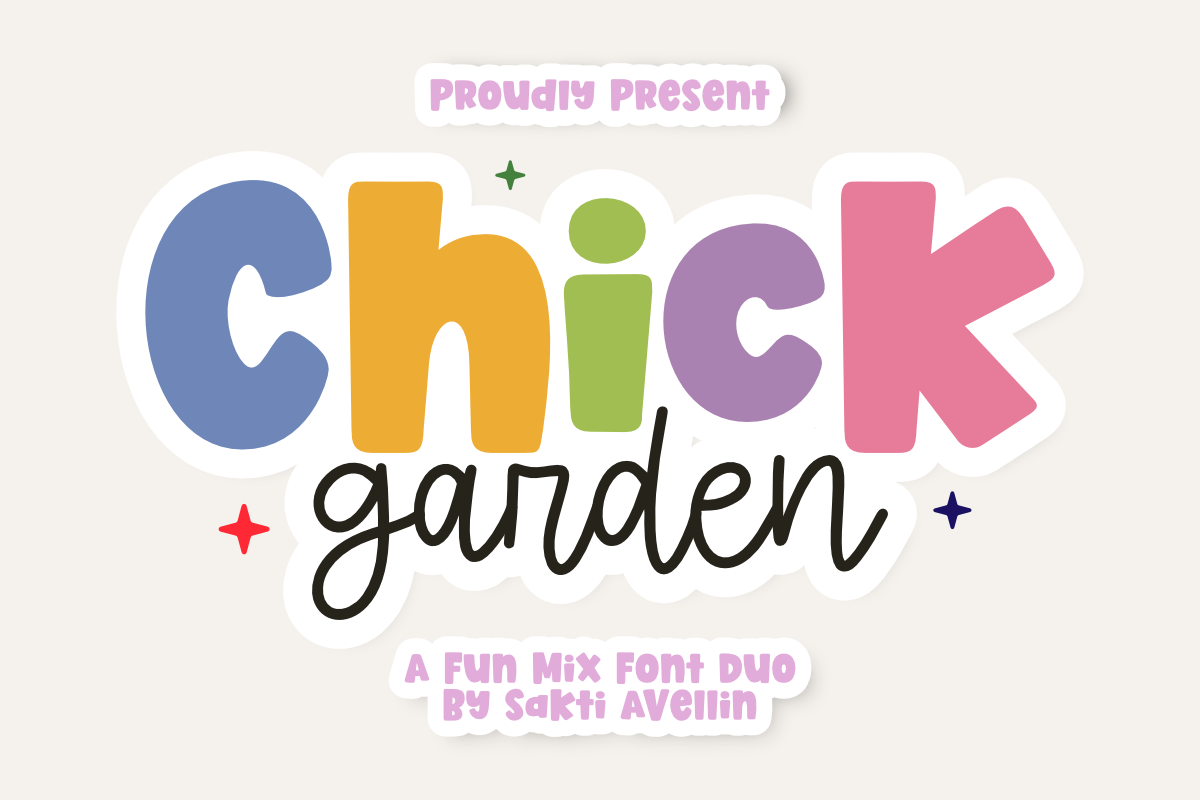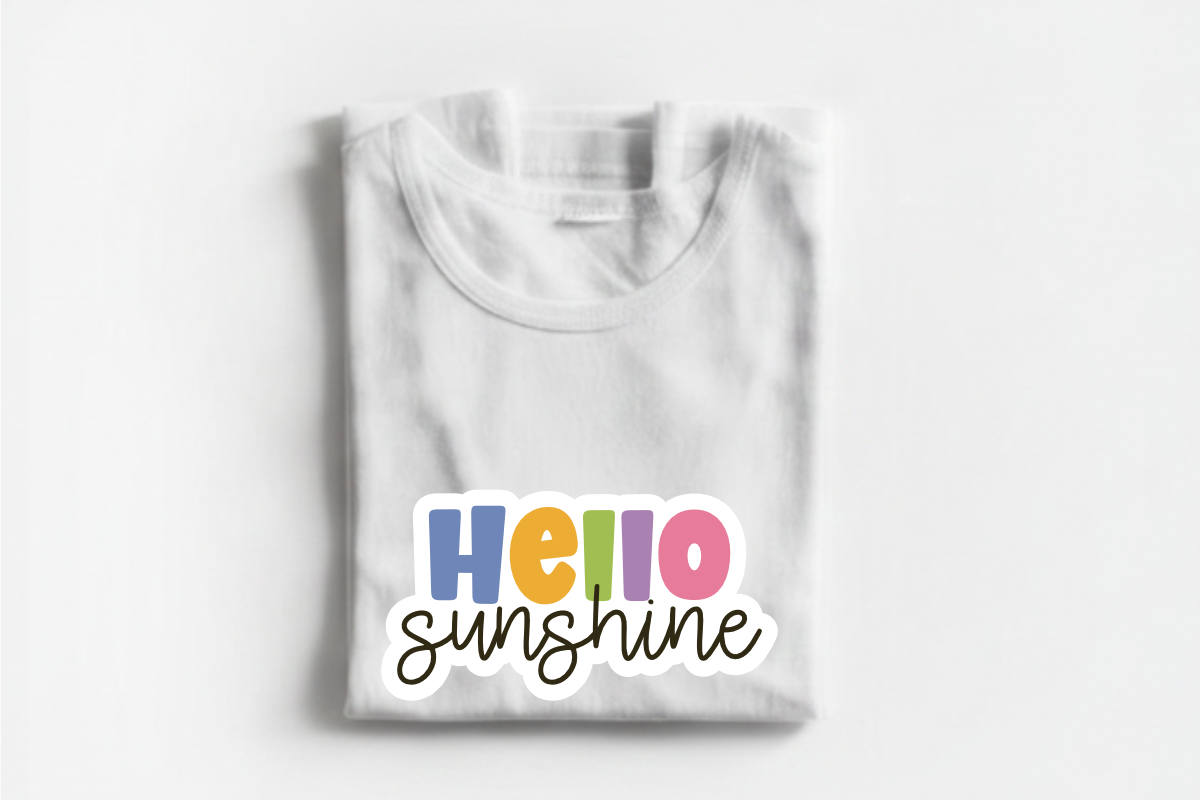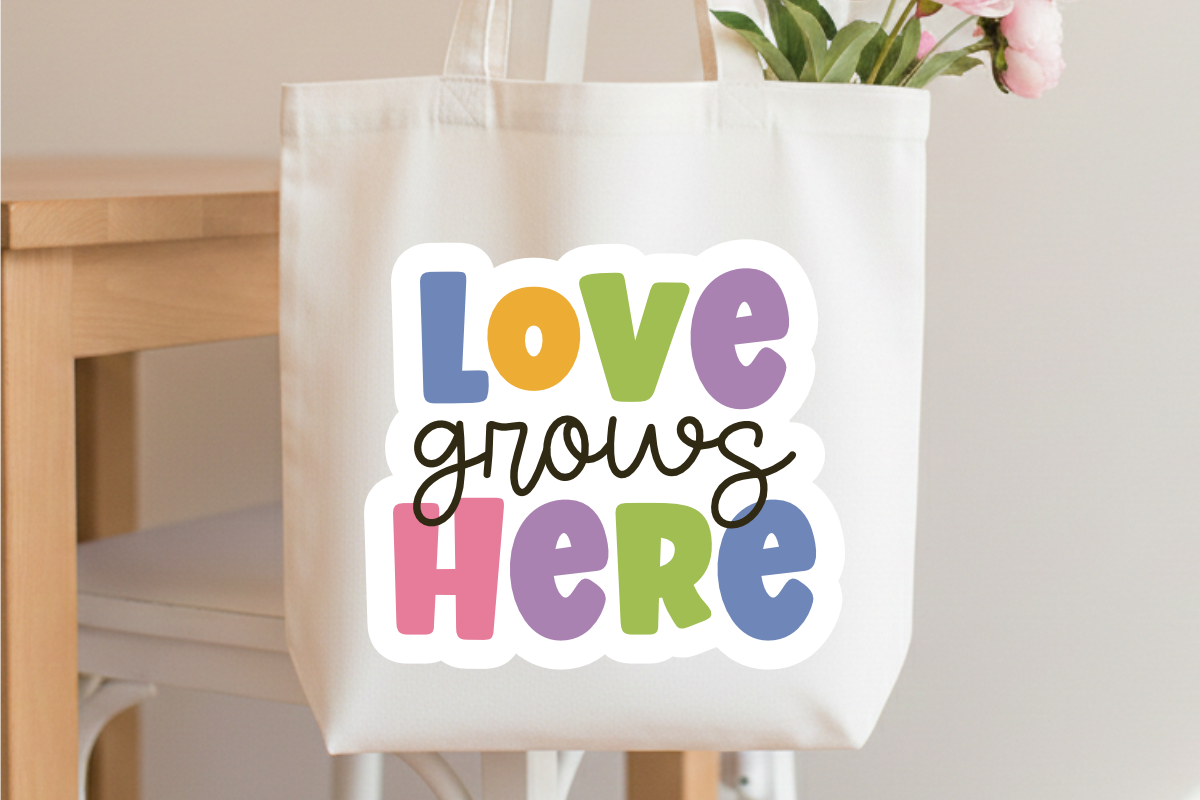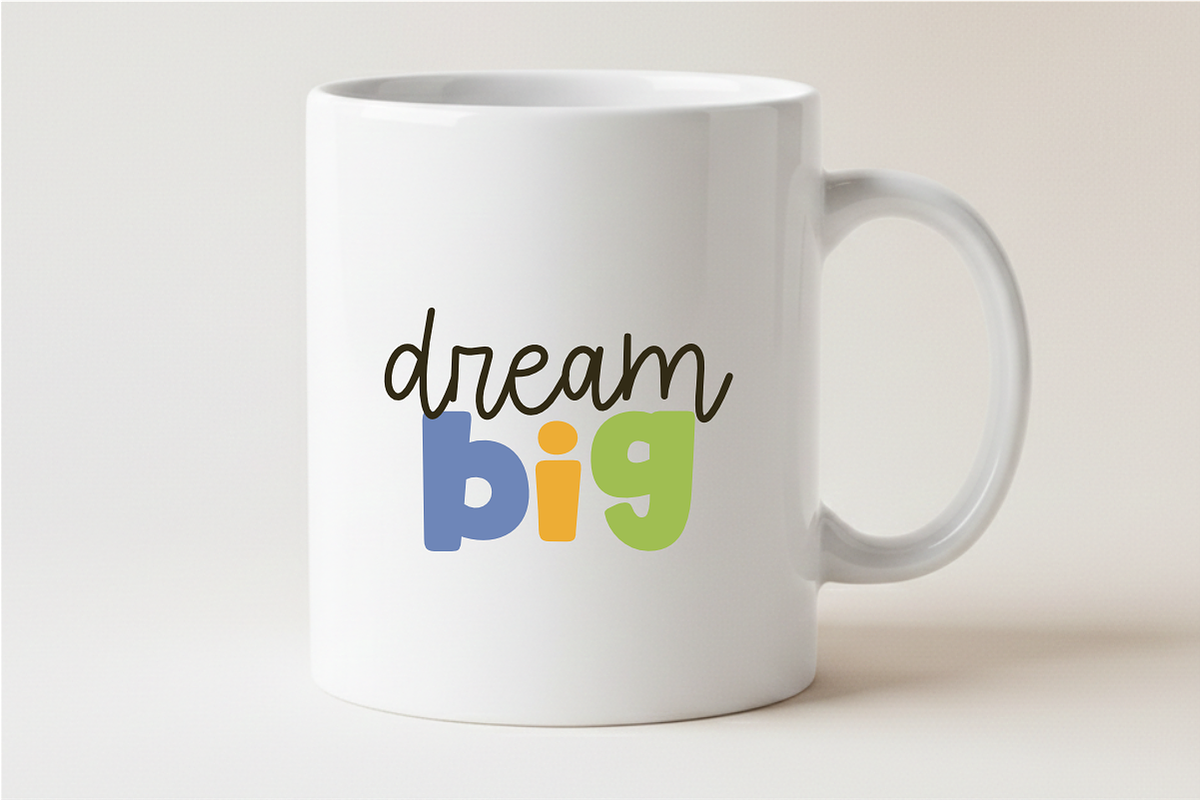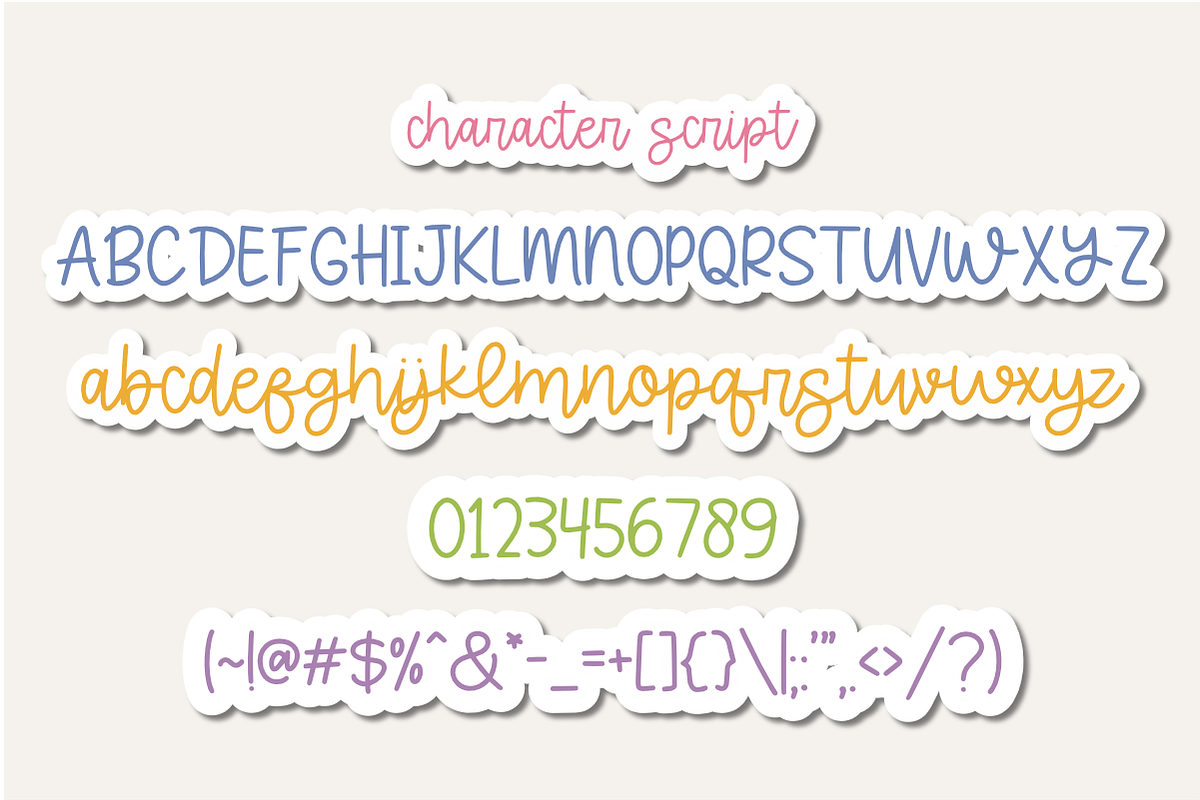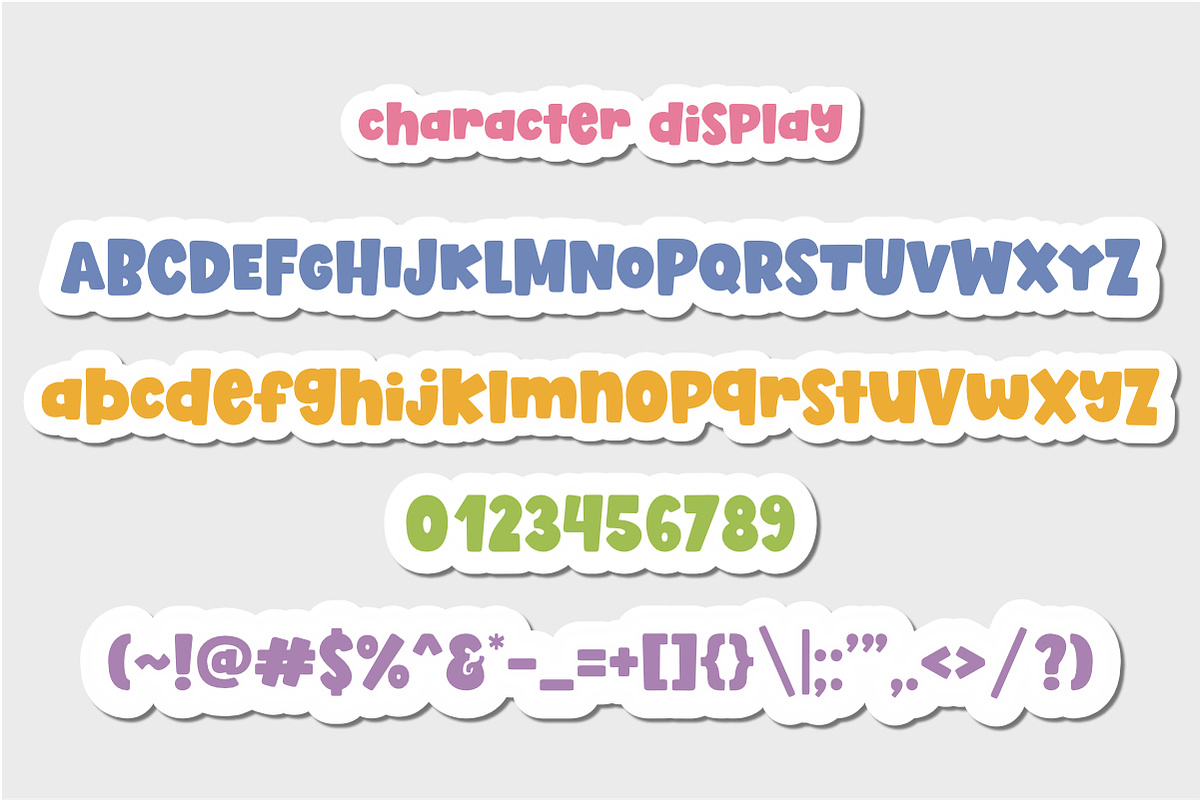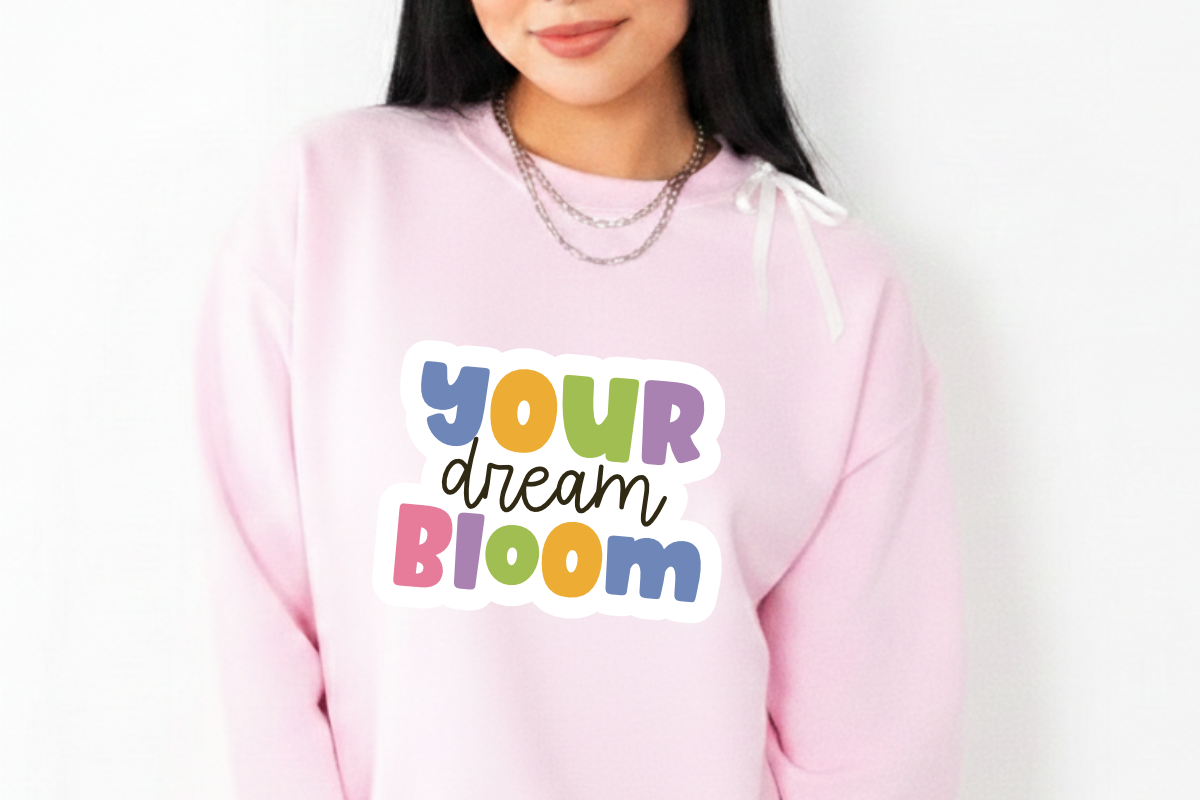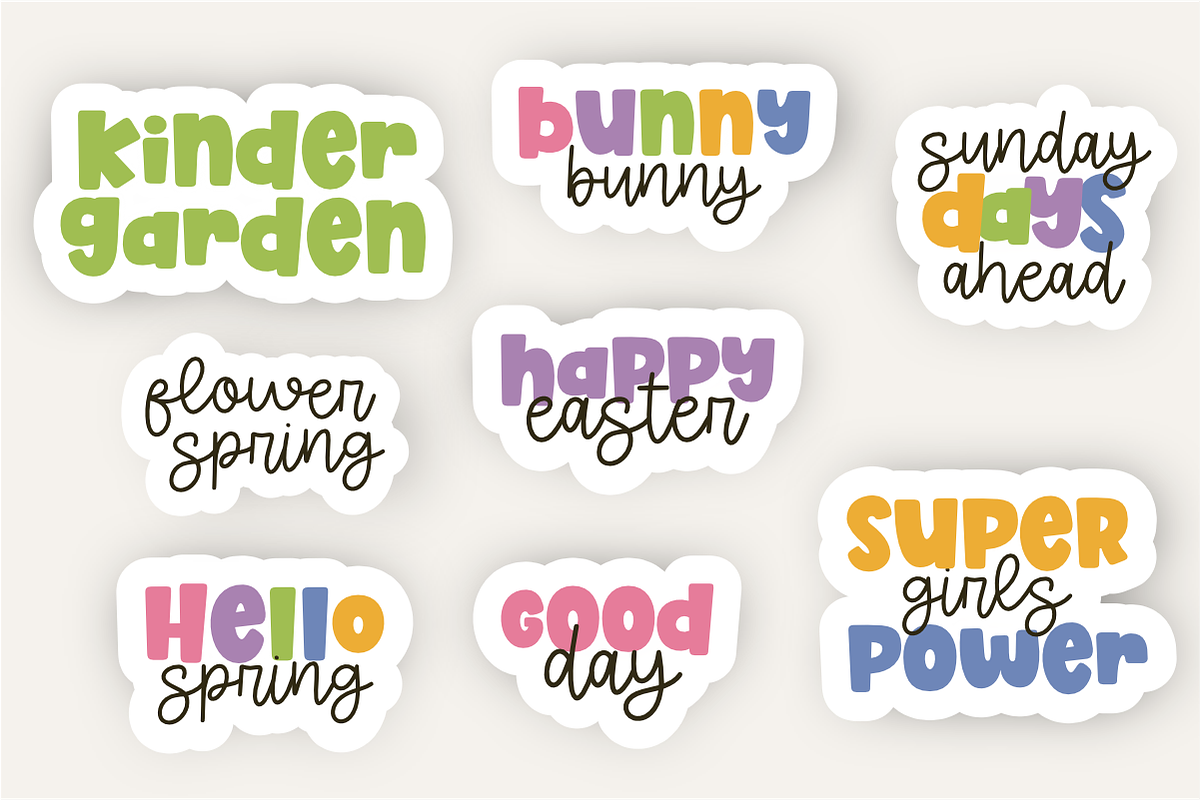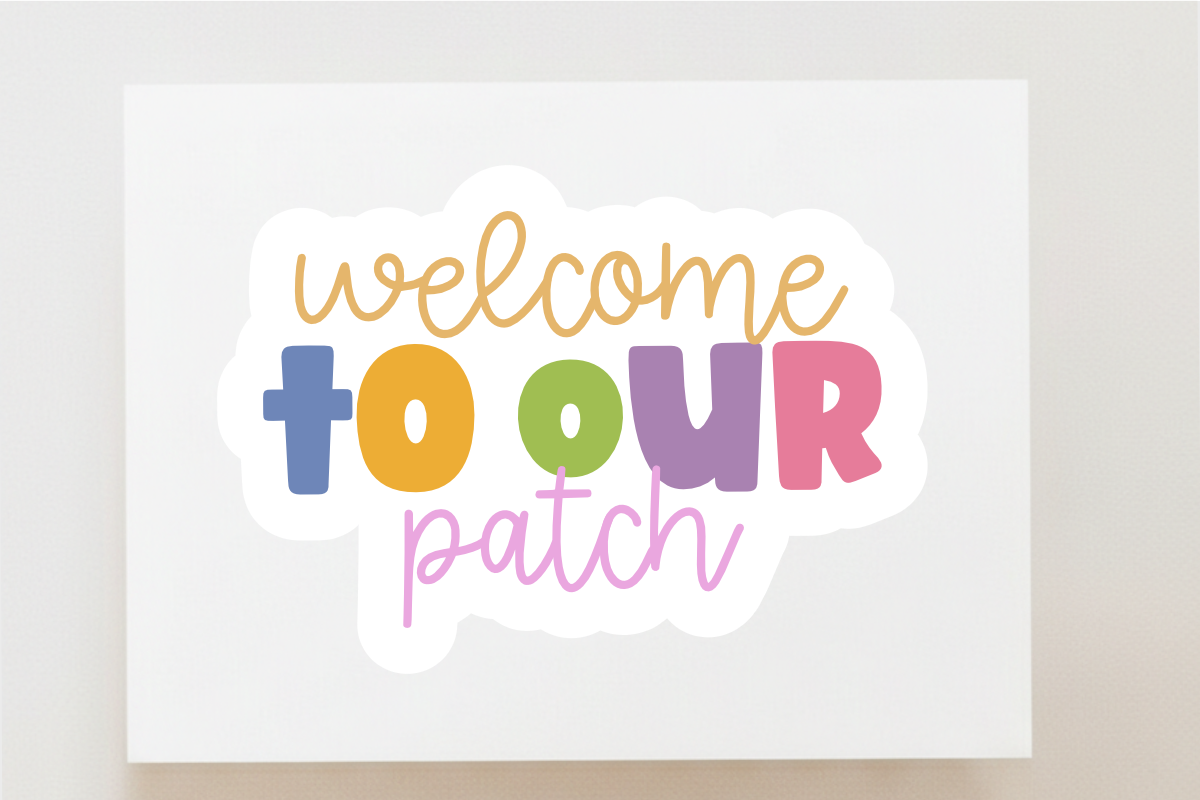
Chick Garden - Fun Mix Font Duo
Chick Garden is a delightful and fun mix font duo designed to bring a playful, organic energy to your creative projects. This pairing features a bold, bubbly display typeface for "Chick" and a charming, thin handwritten script for "garden", making it an ideal choice for kids' branding, nursery decor, colorful stickers, and cheerful greeting cards. Its handcrafted aesthetic and whimsical star accents ensure your designs feel personal and full of life. Whether you are creating toy packaging, summer apparel, or sweet social media graphics, Chick Garden offers a perfect, high-contrast balance for any modern design.